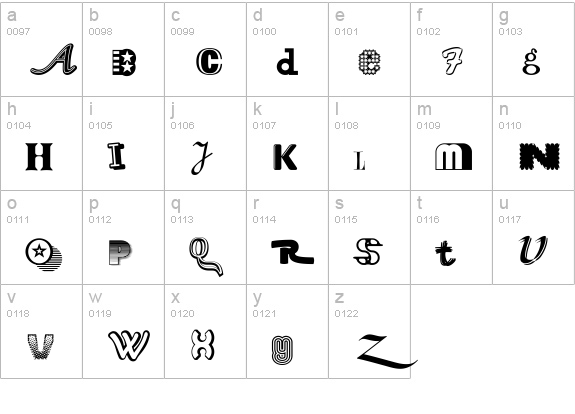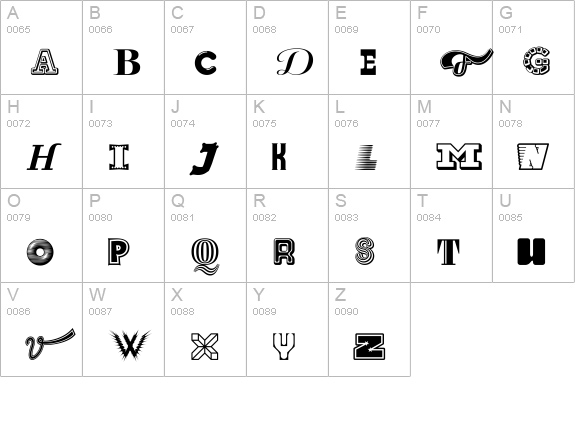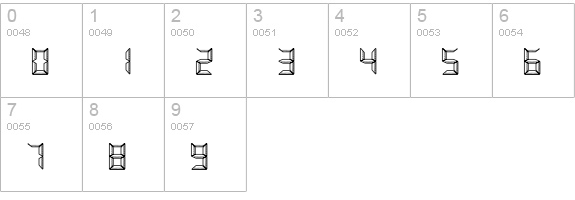
Introducing the What-YouSeeSee font, a captivating and versatile typeface that will bring your designs to life. This exquisite font is designed to make a lasting impression, with its unique and eye-catching features that will capture the attention of any audience. What-YouSeeSee boasts a seamless blend of modernity and elegance, making it suitable for a wide range of design projects. Its clean lines and well-balanced proportions lend a sense of sophistication, while its subtle curves and intricate details add a touch of playfulness and creativity. This font offers an extensive character set, including uppercase and lowercase letters, numbers, punctuation marks, and a variety of special characters. With such versatility, you can effortlessly create stunning typography for logos, branding, headlines, posters, invitations, and so much more. What sets What-YouSeeSee apart is not only its exceptional aesthetic qualities but also its accessibility. It is freely available to download at FontsMarket.com, allowing designers, creatives, and enthusiasts alike to easily add this remarkable font to their collection without any hassle. Whether you're a professional designer or a DIY enthusiast, What-YouSeeSee is the perfect choice to elevate your projects to new heights. Its legibility ensures that your message is conveyed with clarity and precision, while its artistic flair adds a touch of personality and charm. Don't miss out on the opportunity to enhance your designs with this stunning font. Download What-YouSeeSee for free at FontsMarket.com and unlock a world of endless creativity and visual impact.